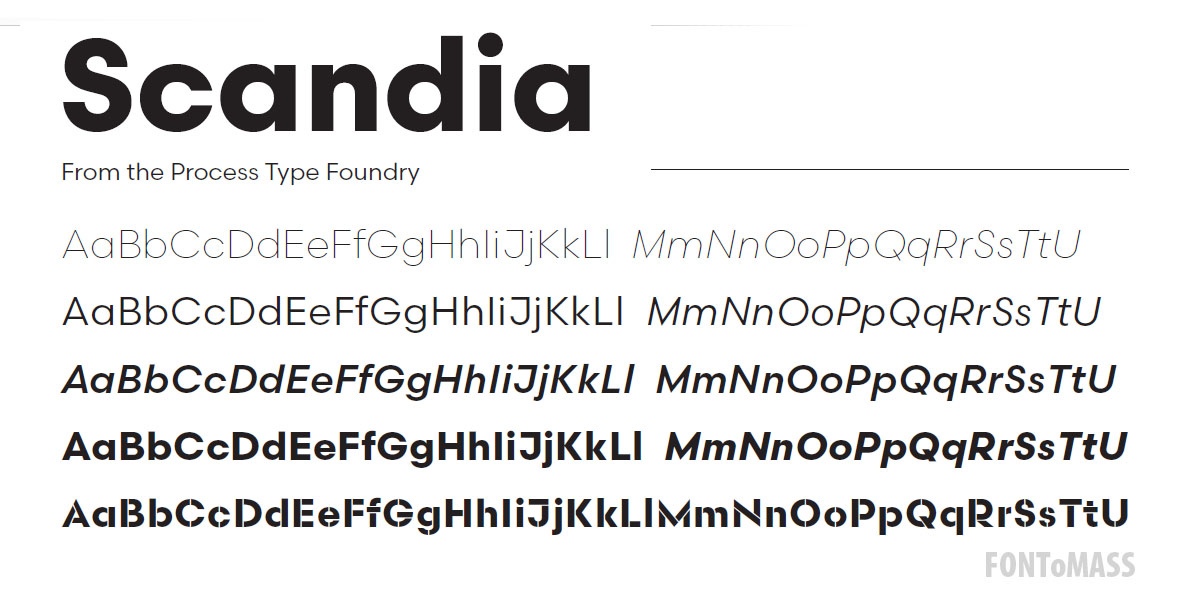
Scandia Font
Scandia Font is ideal for Nordic-inspired branding, minimalist design projects, Scandinavian lifestyle brands, clean architecture signage, modern furniture catalogs, sustainable product packaging, hygge-themed graphics, and contemporary wellness communications.
This exciting Scandia Font embodies the essence of Nordic design philosophy with its clean lines, functional beauty, and understated elegance that reflects Scandinavian values of simplicity, sustainability, and thoughtful living. The font's pristine character and balanced proportions make it an exceptional choice for projects requiring minimalist sophistication, environmental consciousness, and authentic Nordic aesthetic appeal.
The Scandia Font family features comprehensive weight options including Ultra Light, Light, Regular, Medium, Bold, and Black variations, along with their corresponding Italic styles, providing designers with complete flexibility for creating harmonious and authentically Nordic brand communications.
Discover Nordic design excellence with Scandia Font Free Download - a meticulously crafted typeface that channels the timeless principles of Scandinavian design and lifestyle philosophy. This versatile font combines functional minimalism with warm humanity, making it perfect for brands seeking to communicate sustainability, quality, and thoughtful design sensibilities.
The Nordic character of Scandia Font makes it particularly valuable for sustainable brands, furniture designers, wellness companies, and lifestyle businesses that need to convey authenticity, environmental responsibility, and quality craftsmanship. Its clean aesthetic appeals to consumers who appreciate minimalist living and sustainable lifestyle choices.
Professional designers choose Scandia Font for its exceptional clarity and timeless appeal across various applications while maintaining authentic Nordic sensibility. The font performs beautifully from small digital interfaces to large environmental graphics, ensuring consistent brand recognition and Scandinavian aesthetic integrity.
The versatile functionality of Scandia Font supports comprehensive lifestyle brand systems and sustainable communication strategies. Its balanced proportions and clean styling work effectively for everything from product catalogs to architectural signage, providing organizations with reliable typographic foundation for Nordic-inspired brand experiences.
Contemporary brands utilize Scandia Font to establish authentic connections with consumers who value sustainability, quality, and mindful living in today's environmentally conscious marketplace. The typeface's Nordic elegance helps organizations communicate values of environmental responsibility, craftsmanship, and thoughtful design that resonate with conscious consumers seeking authentic lifestyle brands.